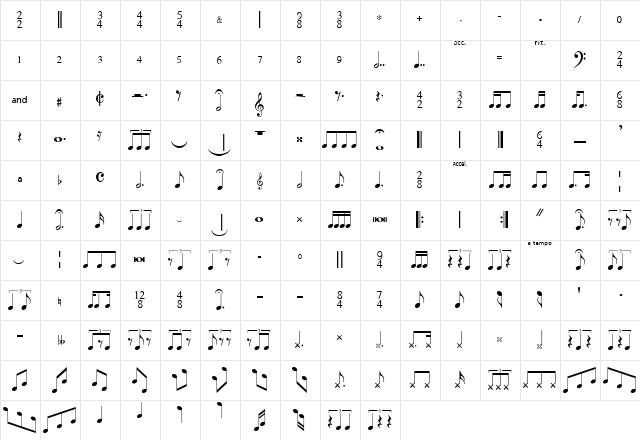
MusiSync Regular
| Designer | Robert Allgeyer (Santa Cruz, CA USA) |
Design Context for MusiSync Typeface
MusiSync takes a measured approach to typography — its balanced proportions and neutral character make it a reliable workhorse for both digital and print work.